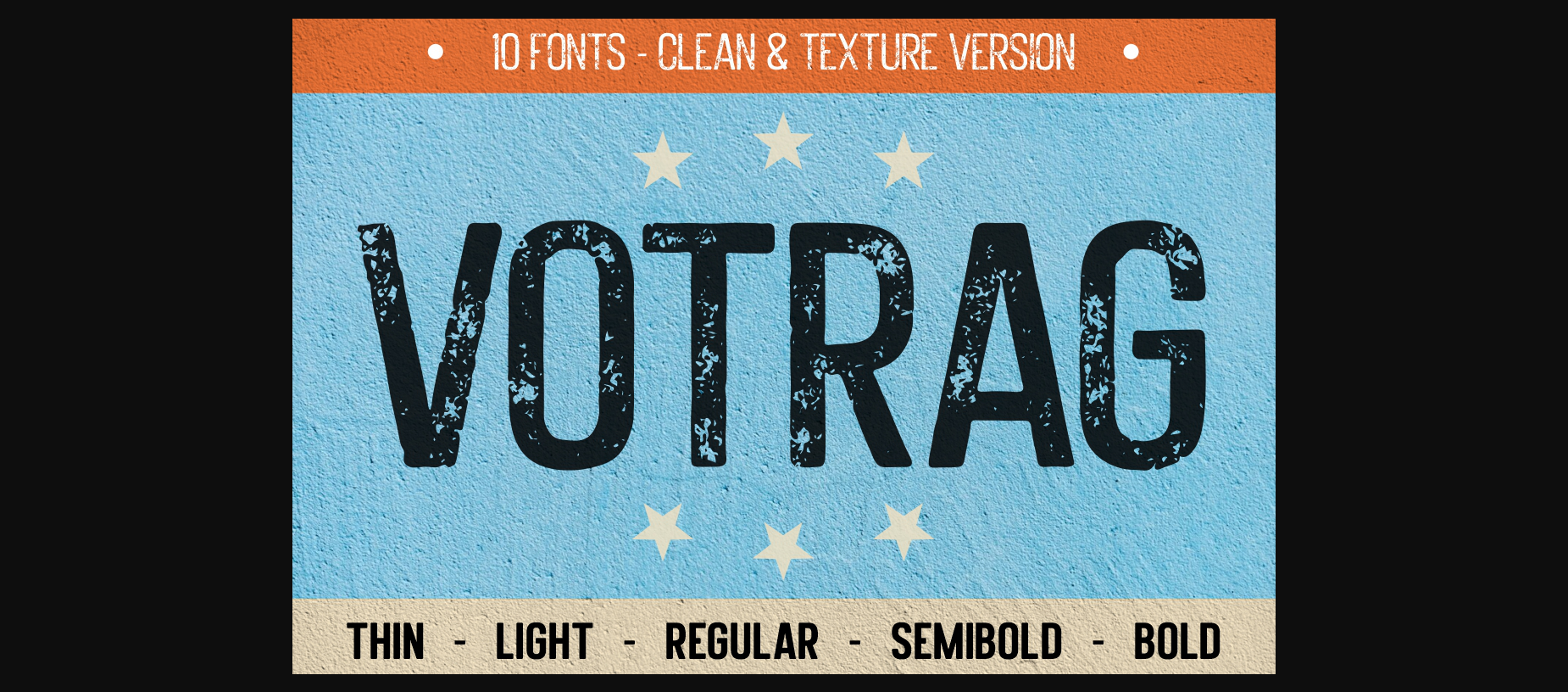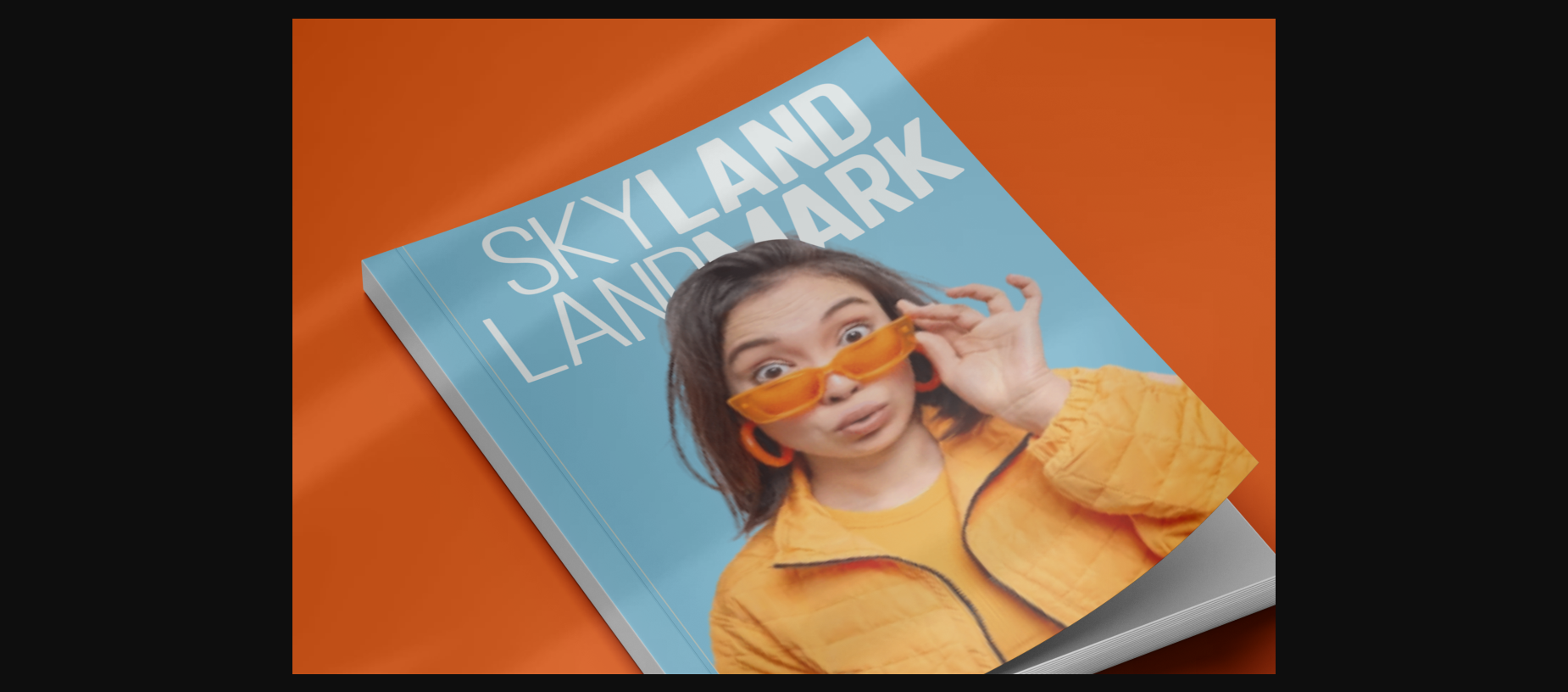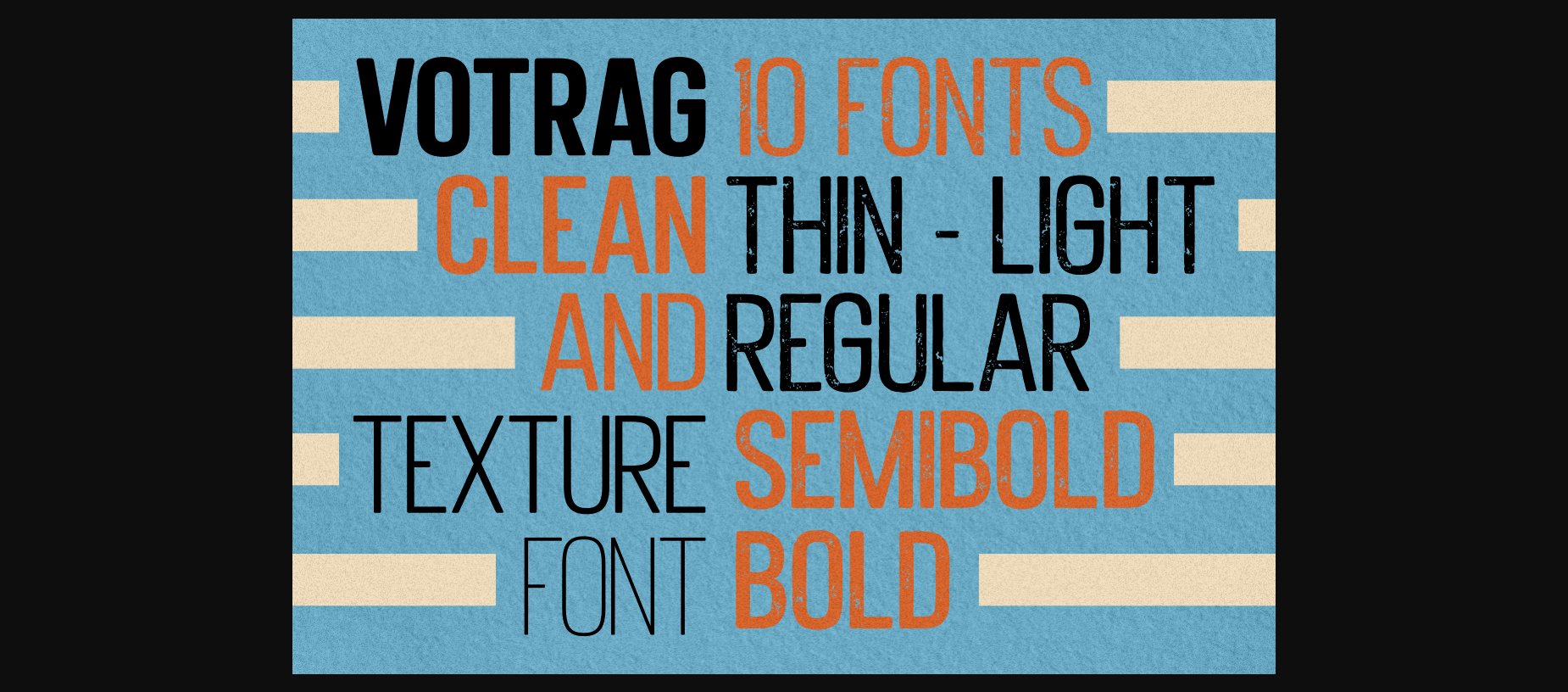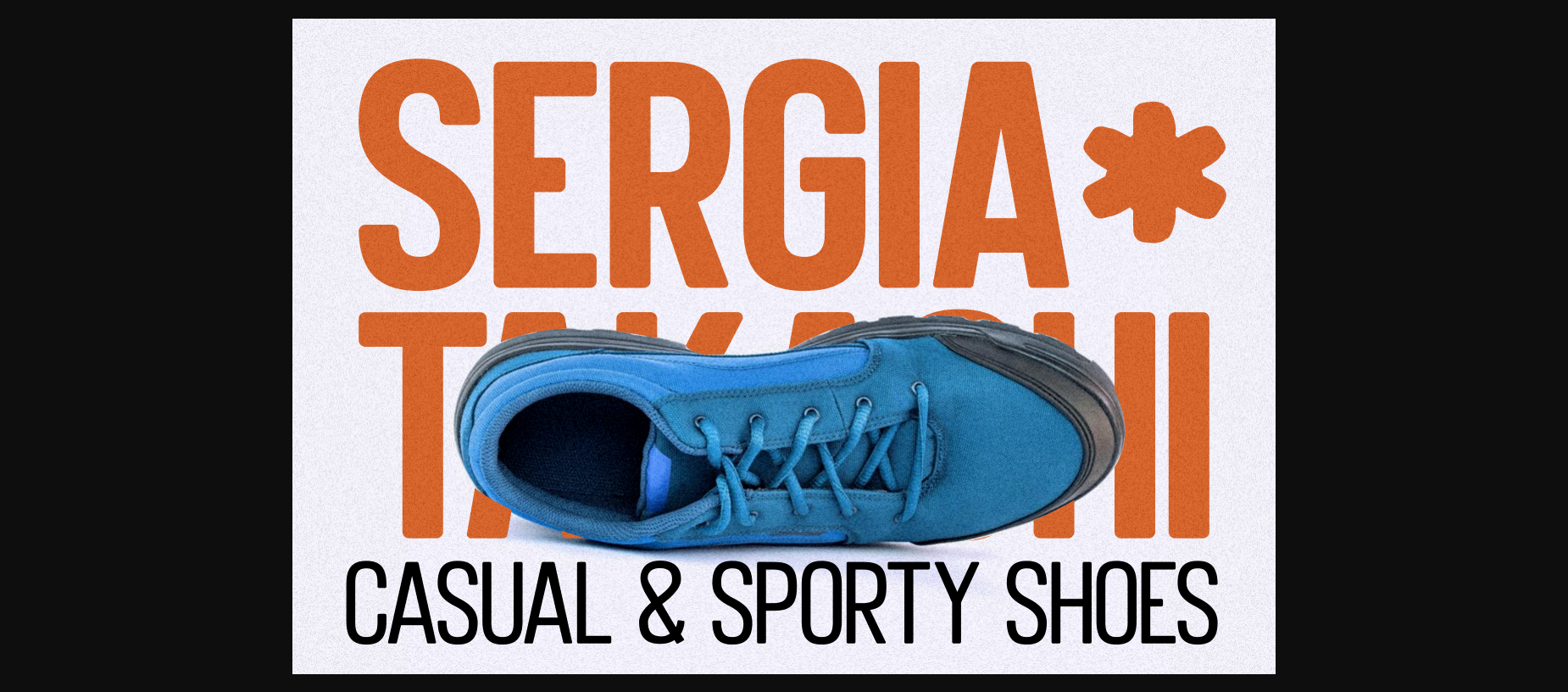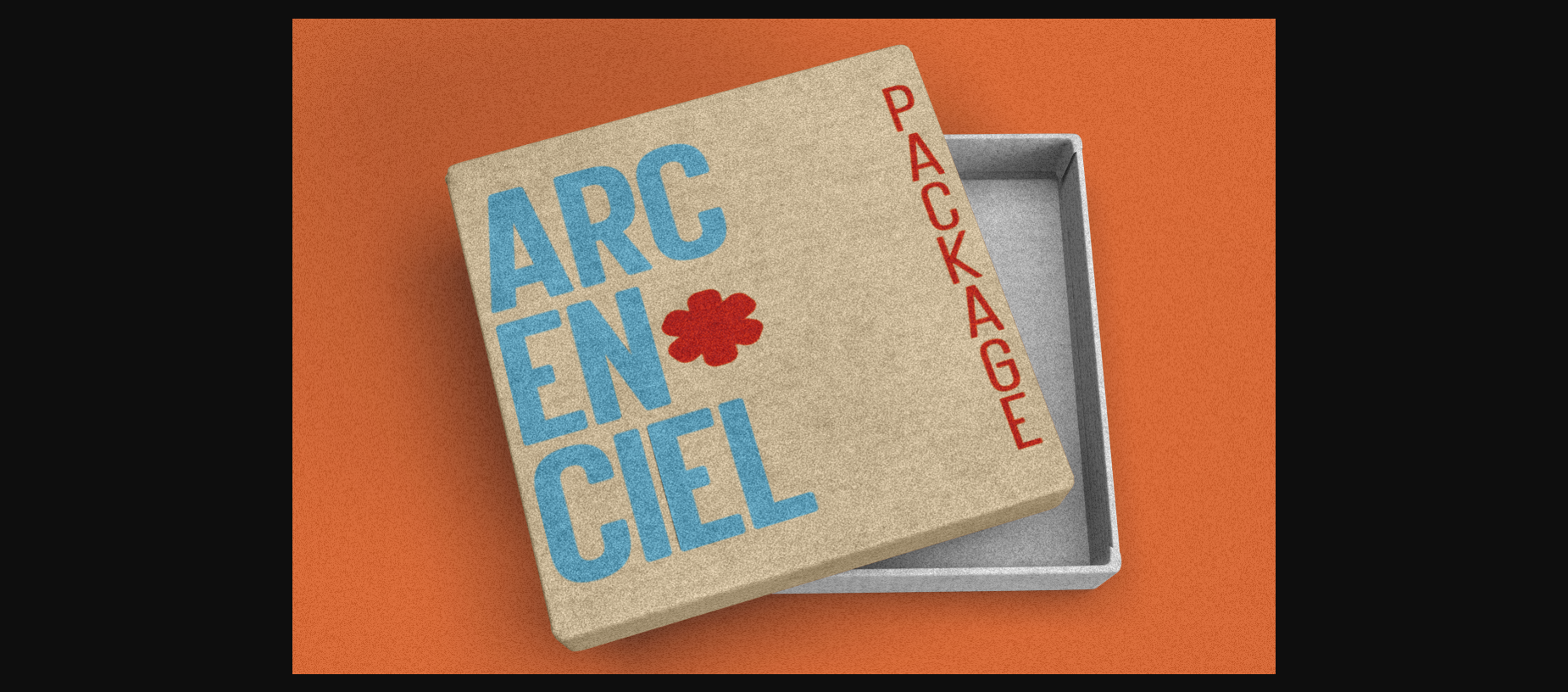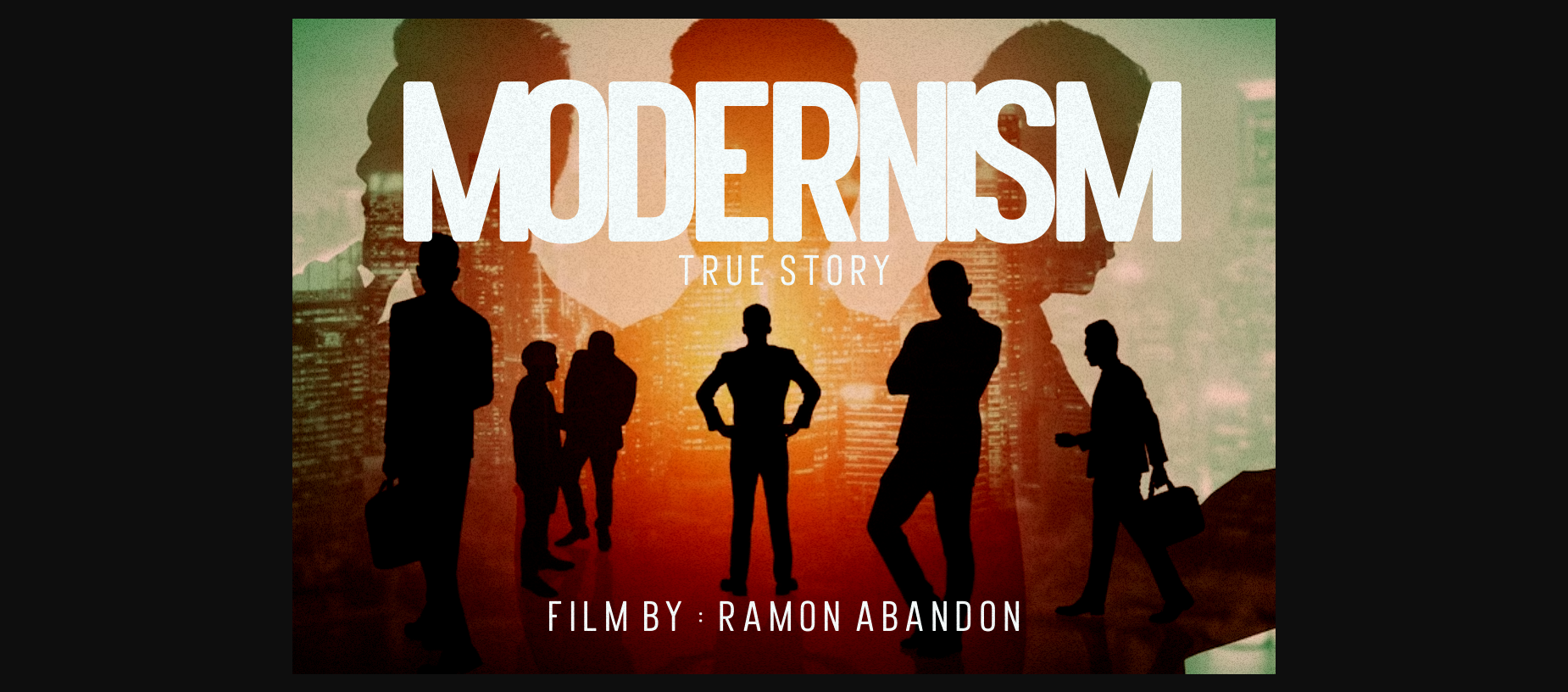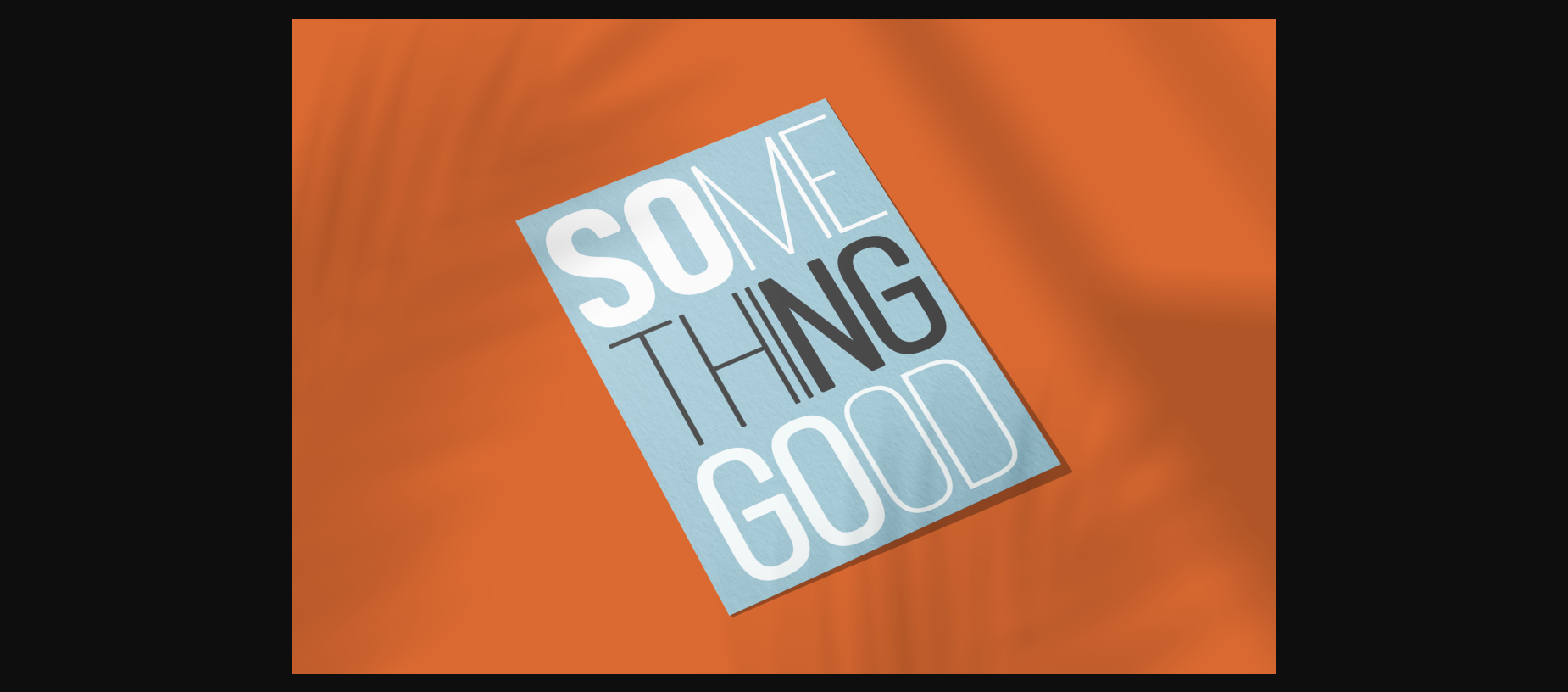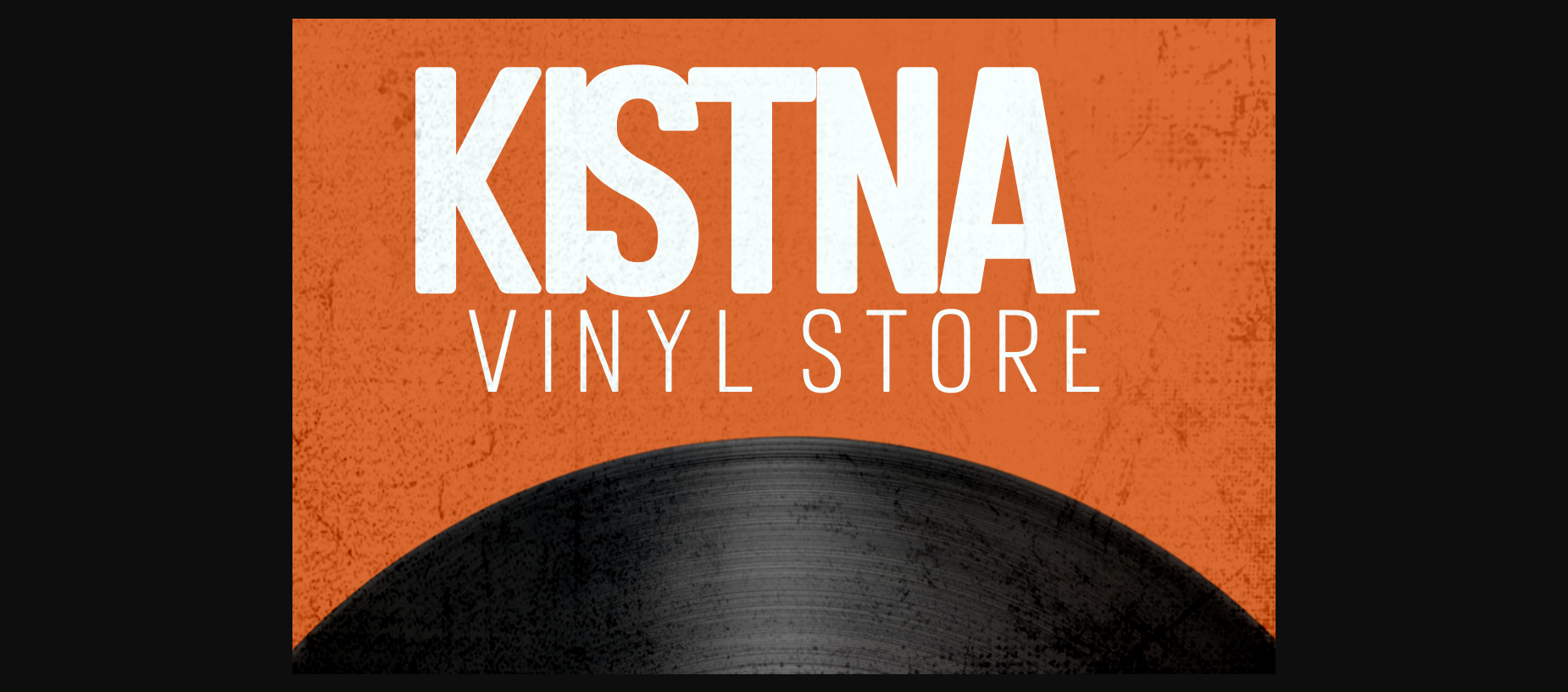
Votrag Font
About Votrag Font
Introducing Votrag – 10 Modern Font Collection, a versatile typeface set that encompasses a spectrum of design possibilities. With five distinct weights – thin, light, regular, semibold, and bold – each accompanied by both clean and textured versions, Votrag offers a total of ten unique fonts. The sans-serif style with rounded corners exudes a contemporary and cool aura, adding a touch of modern finesse to your projects. Whether you’re engaged in branding, logo creation, packaging design, printing materials, file formatting, title styling, magazine layouts, headlines, posters, stickers, and beyond, Votrag empowers your creative journey.
Votrag – 10 Modern Font Collection is your gateway to boundless creativity. Featuring a comprehensive range of five weights – thin, light, regular, semibold, and bold – alongside clean and textured variations, this typeface set encompasses an impressive total of ten fonts. The sans-serif style, characterized by its rounded corners, radiates a sense of modernity and stylishness. Its versatility makes it a prime choice for an array of applications, from elevating your brand identity and crafting captivating logos to enhancing packaging aesthetics, curating printing materials, organizing digital files, and making a bold statement with titles, magazine layouts, headlines, posters, stickers, and more.